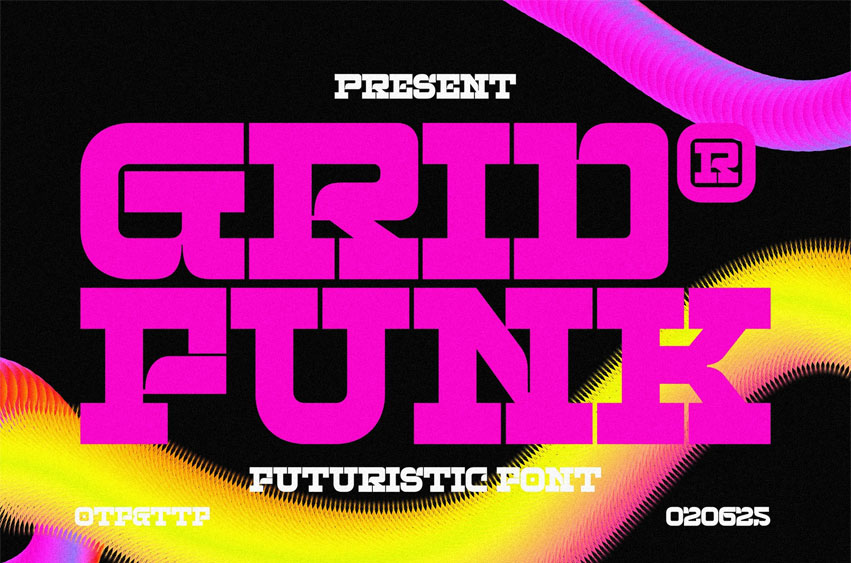
Gridfunk Font
Gridfunk Font is a futuristic typeface that blends geometric precision with an experimental twist. Built upon a strong grid structure, each character feels modern, bold, and assertive yet infused with a dynamic, unique aesthetic.
Perfect for tech-themed designs, electronic music visuals, futuristic fashion, gaming, and standout branding. Grid Funk delivers a strong and memorable visual identity ideal for titles, posters, logos, or any digital display that calls for an avant-garde feel. Uppercase